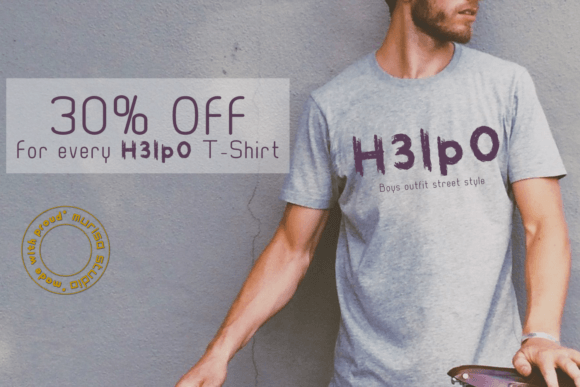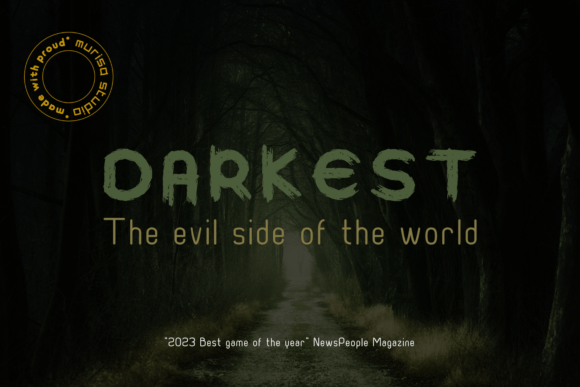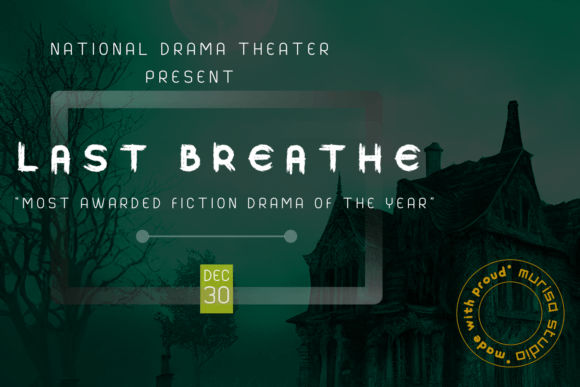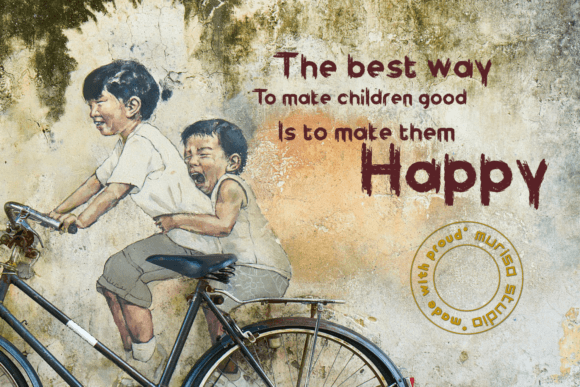
Introduction to Murisa Rania Font Font
Fonts play a crucial role in design, and the Murisa Rania Font font is a typeface that brings both character and versatility to any project. Whether you’re working on a branding project, a website, or a print design, the Murisa Rania Font font offers a unique style that can elevate your work.
Murisa Rania is our next very attractive font.
Have you ever imagined a font that is formed from brush strokes whose ink is almost dry Thatβs what this font is made of.
Key Features of Murisa Rania Font Font
Why Choose Murisa Rania Font Font?
The Murisa Rania Font font is more than just a typeface β it’s a design tool that helps you communicate your message with style and clarity. Its unique character set and versatile design make it suitable for a wide range of applications, from elegant invitations to bold headlines.
With its carefully crafted letterforms and balanced proportions, the Murisa Rania Font font ensures readability and visual appeal across all mediums.
What makes Murisa Rania Font font special?
The Murisa Rania Font font stands out with its unique design, exceptional readability, and versatility across various design applications.